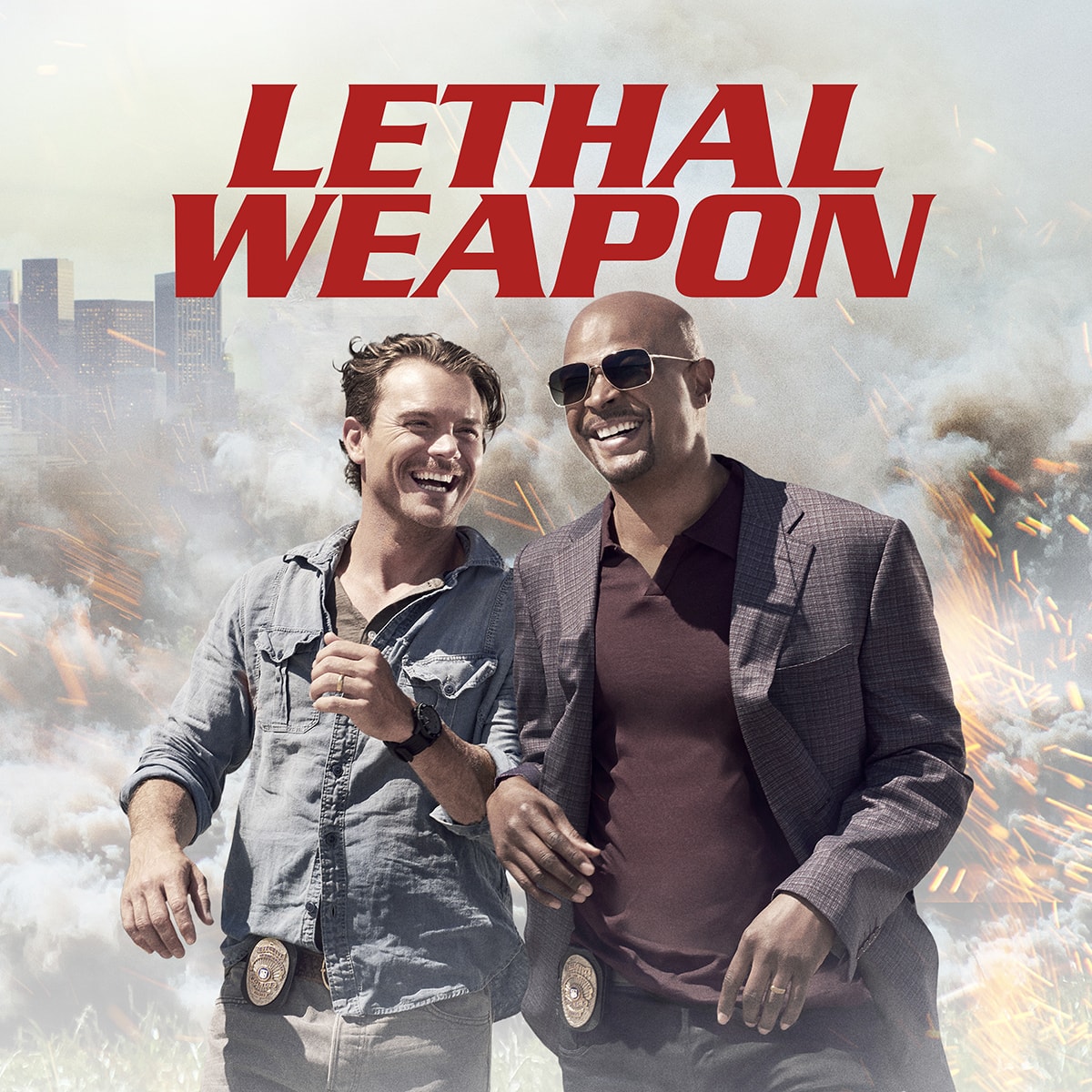
Lethal Weapon Font
ActionLethal Weapon is a 1987 American buddy cop action film directed and produced by Richard Donner, written by Shane Black, and co-produced by Joel Silver. The story centers around two LAPD detectives who work together as partners - Martin Riggs (Gibson), a former Green Beret, and veteran officer Roger Murtaugh (Glover).
The font used for the Lethal Weapon film title is Serpentine Bold Oblique. Serpentine, a display typeface designed by Dick Jensen for Visual Graphics Corporation, was released in 1972. Light, Medium, and Bold font styles are available, as well as matching oblique styles.